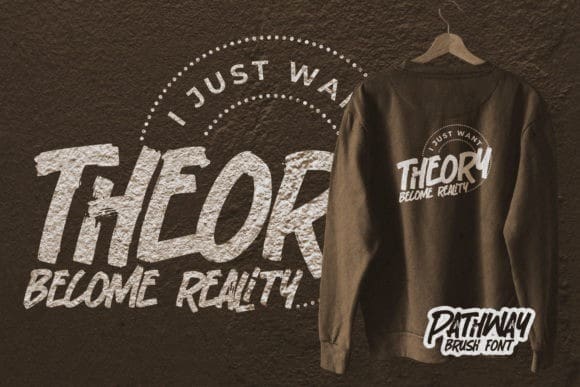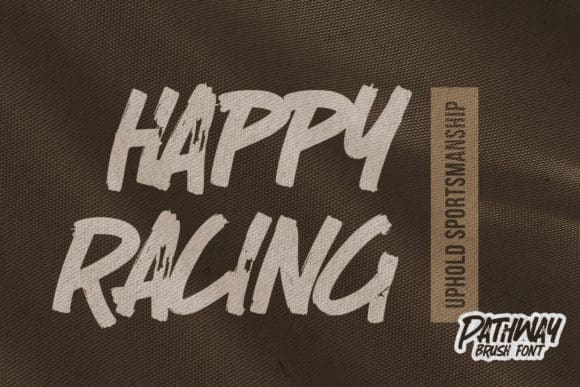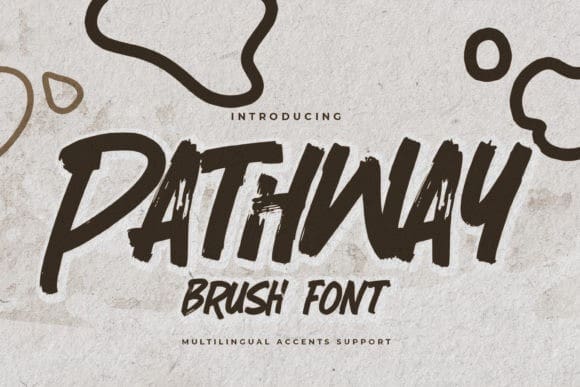
Pathway Brush Font
Pathway Brush Font is a cool and brushed display font, featuring an urban vibe. It is perfect for any branding project such as logos, t-shirt printing, creative products, and more. It will look extraordinary in a variety of contexts.